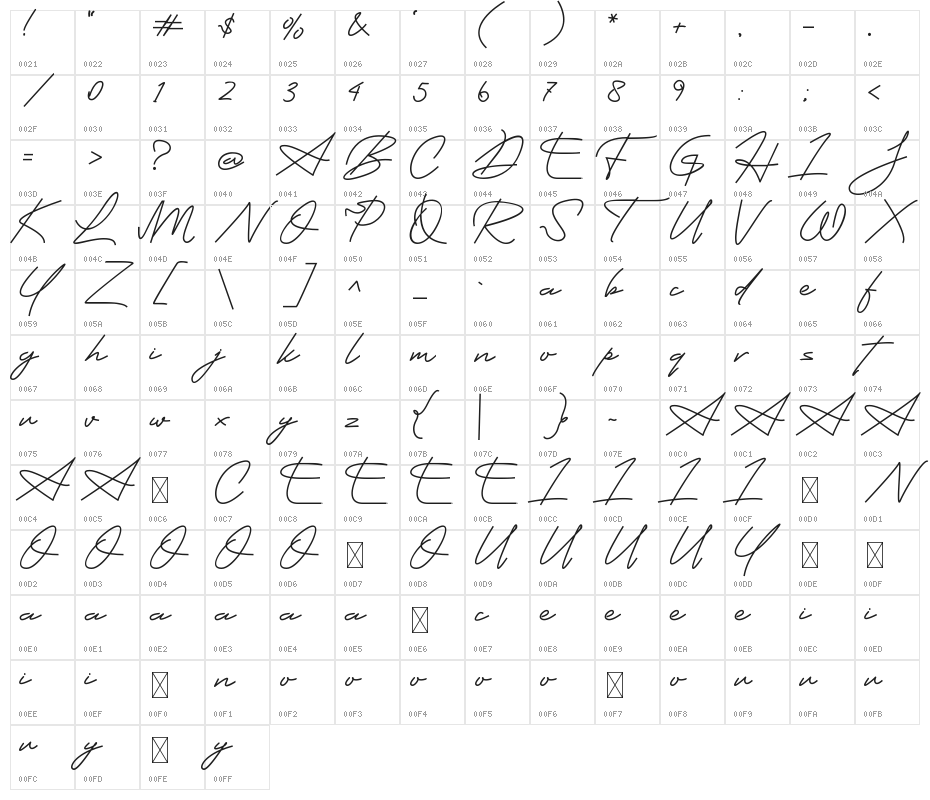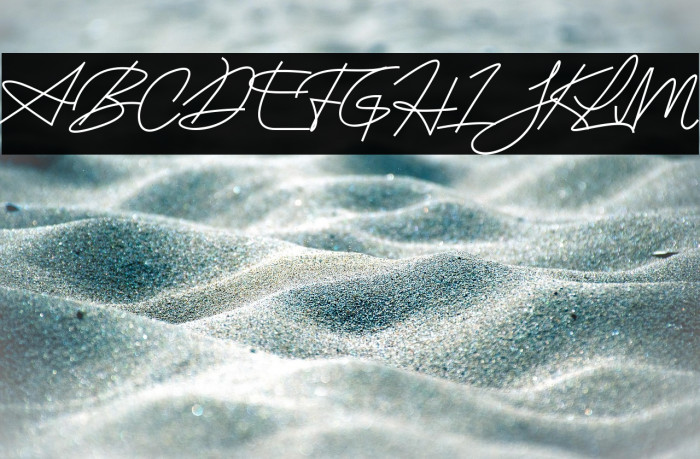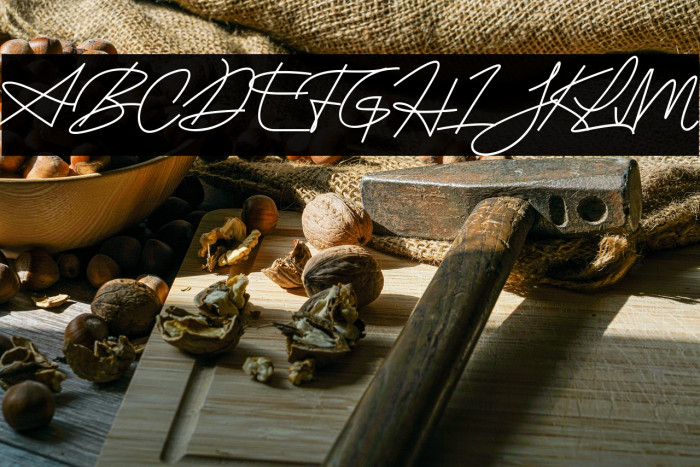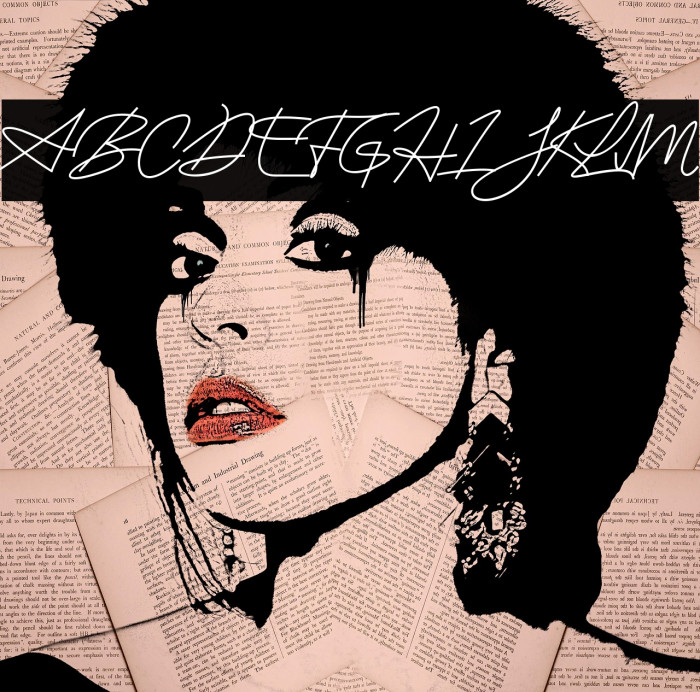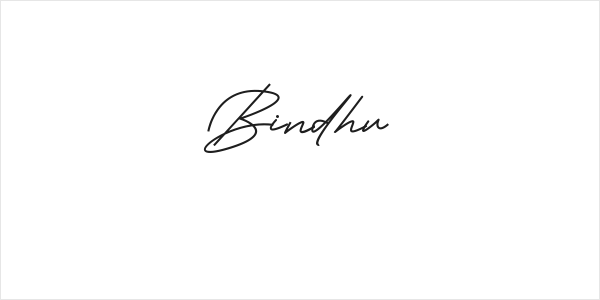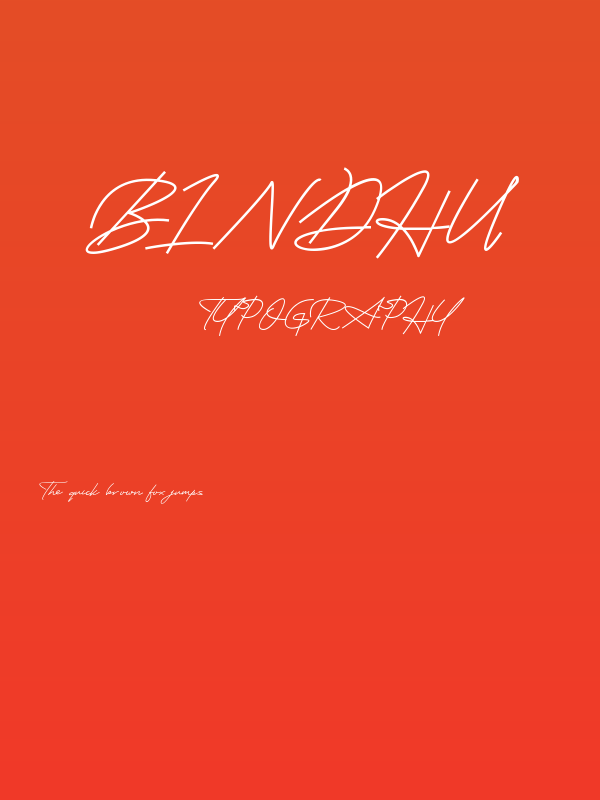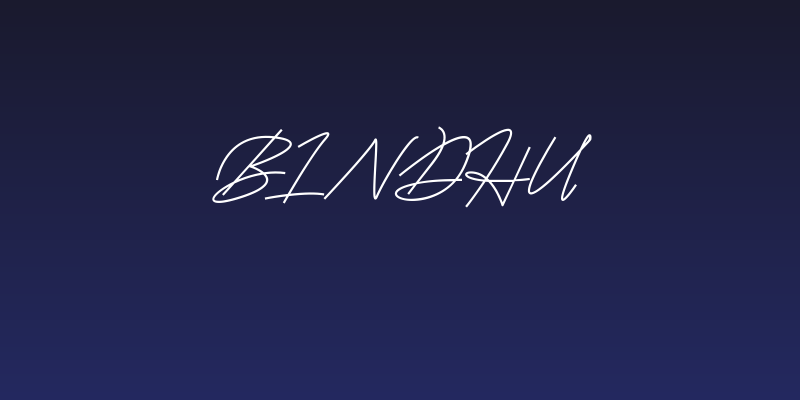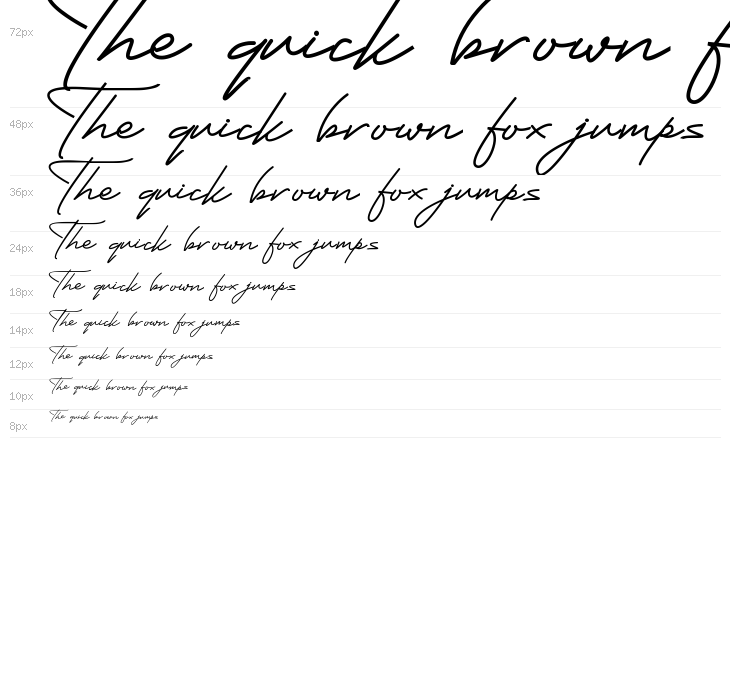
Bindhu Font
Bindhu Description
This font exudes a sophisticated and elegant handwritten style, characterized by its fluid and connected strokes. The uppercase letters are tall and slender, with a graceful flow that mimics natural handwriting. The lowercase letters maintain a consistent rhythm, enhancing readability while preserving the script's artistic flair. Numbers and special characters are crafted with the same attention to detail, ensuring a cohesive look across all text elements. The font's overall appearance is both stylish and versatile, making it suitable for a variety of design applications.
| Proposed Projects | Ideal for wedding invitations, personal branding, greeting cards, and elegant packaging designs. |